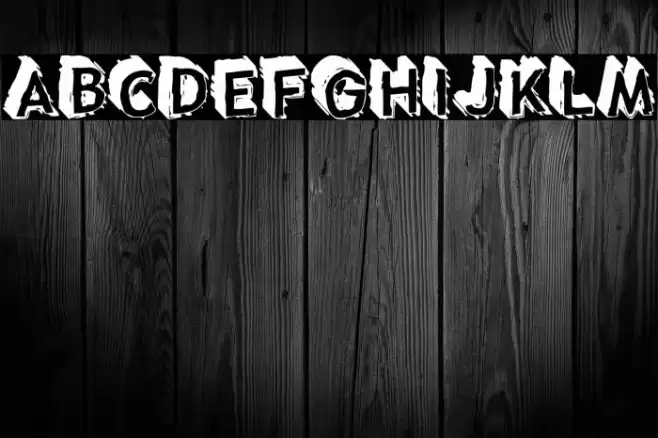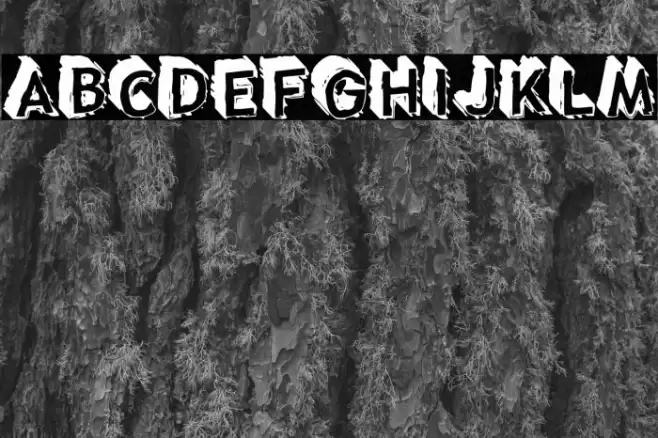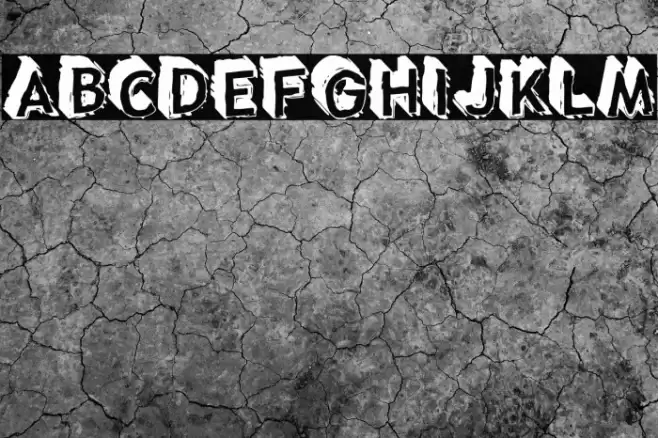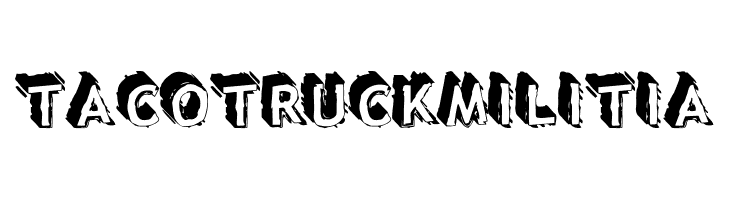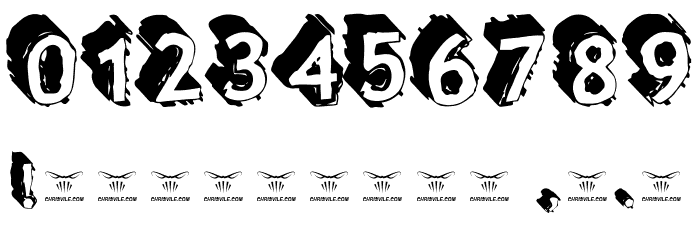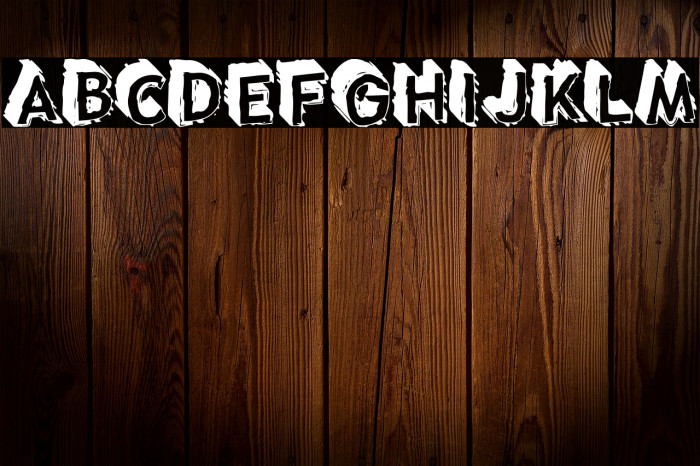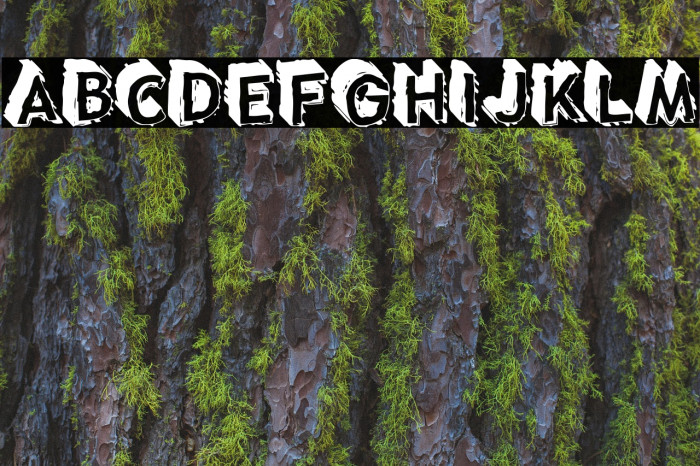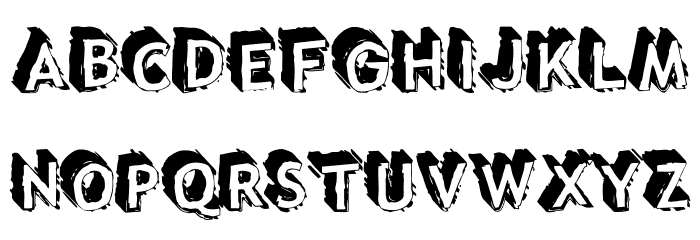
Taco Truck Militia Font
Taco Truck Militia Description
This font features a bold and rugged style with a distressed, grunge-like appearance. The characters are heavily textured, giving them a worn and weathered look, reminiscent of graffiti or street art. The bold strokes and irregular edges create a dynamic and energetic feel, making it stand out in any design. The uppercase and lowercase letters maintain a consistent style, with numbers and special characters following the same aesthetic. This font is perfect for projects that require a bold statement or an edgy, urban vibe.
A bold, distressed font with a grunge, street-art style from Uncategorized fonts.
- Proposed Projects: Ideal for posters, album covers, streetwear branding, and urban-themed designs.
- Overall Style: Urban, Grunge, Energetic